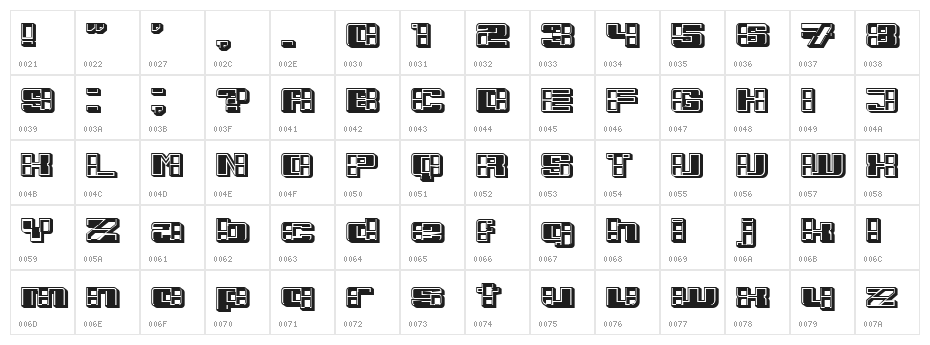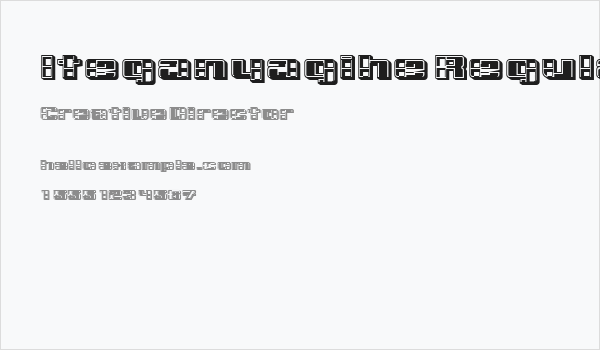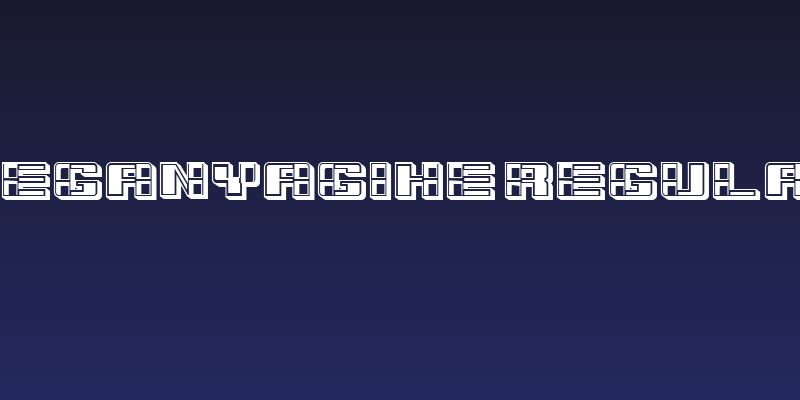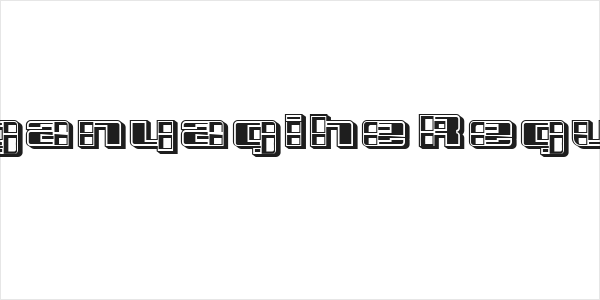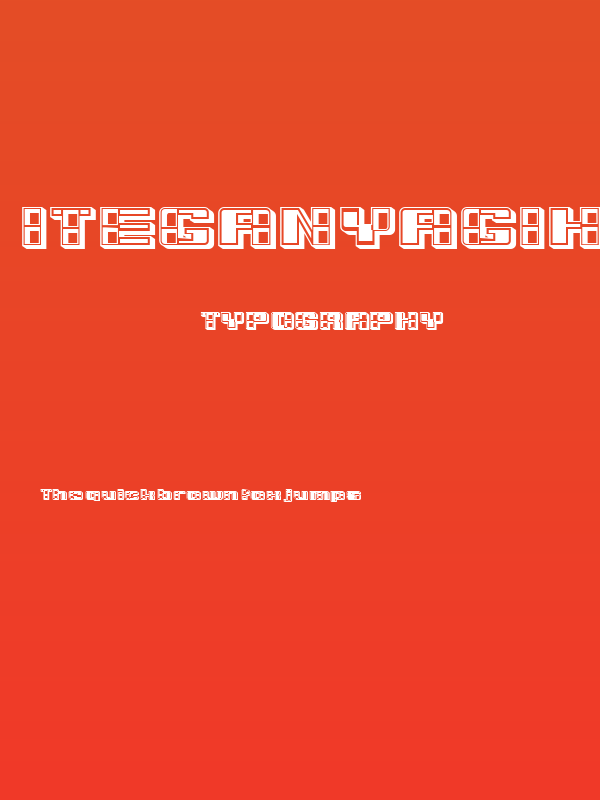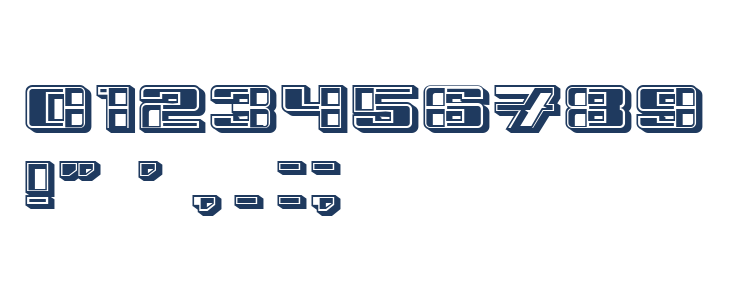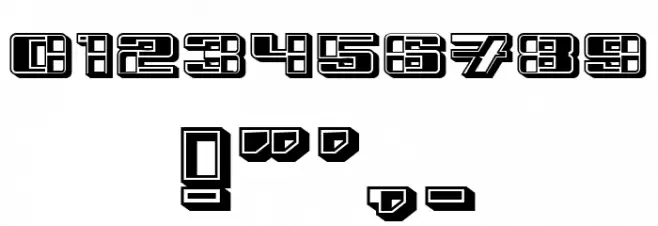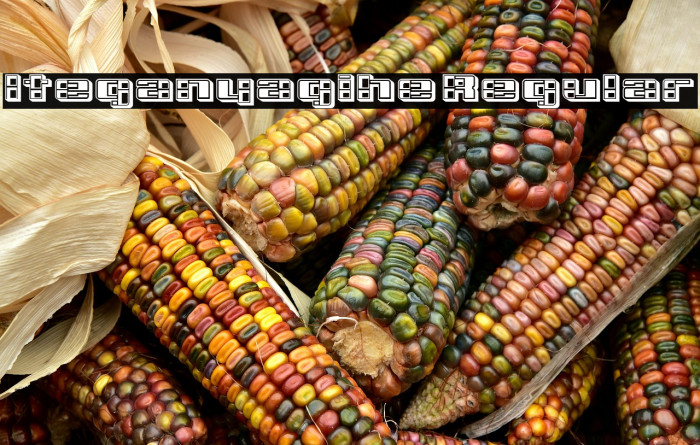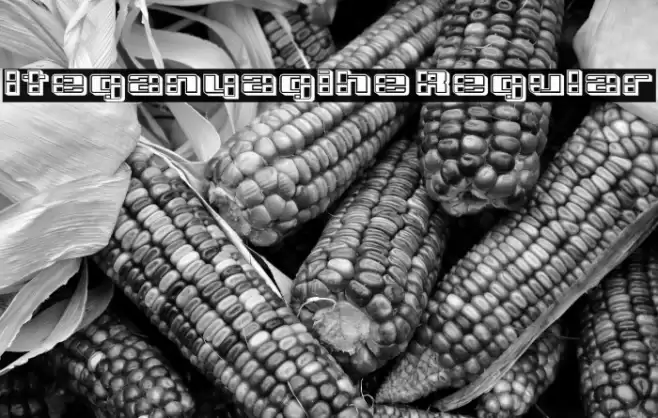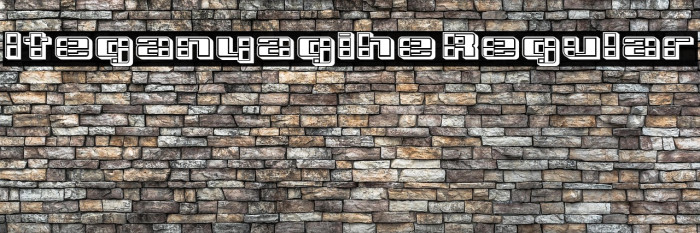
Iteganyagihe Regular Font
This font features a bold, geometric design with a three-dimensional effect. Each character is outlined with a thick border, creating a striking visual impact. The letters are constructed with angular lines and sharp corners, giving them a futuristic and industrial feel. The uppercase and lowercase letters maintain a consistent style, while the numerals and special characters complement the overall aesthetic. The font's unique structure makes it ideal for attention-grabbing designs.
| Overall Style | Futuristic, Industrial |
| Proposed Projects | Ideal for posters, logos, video game graphics, and futuristic-themed designs. |